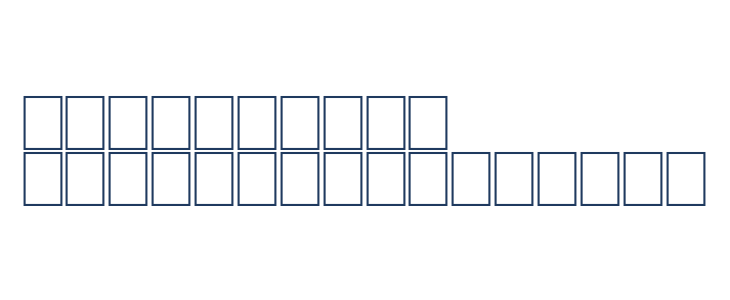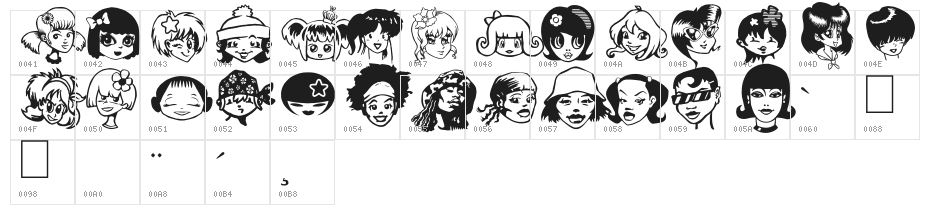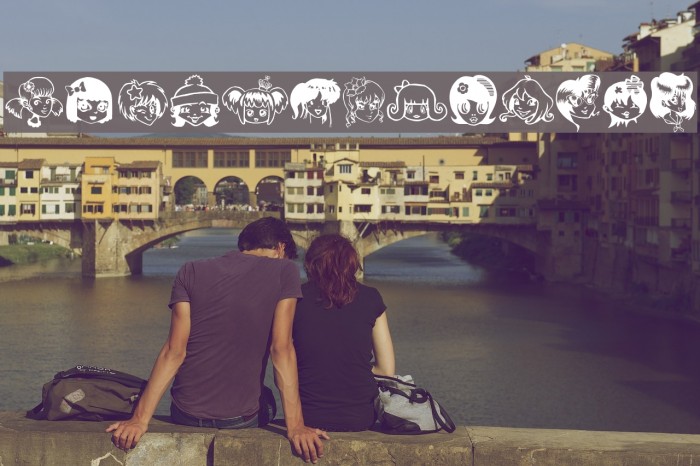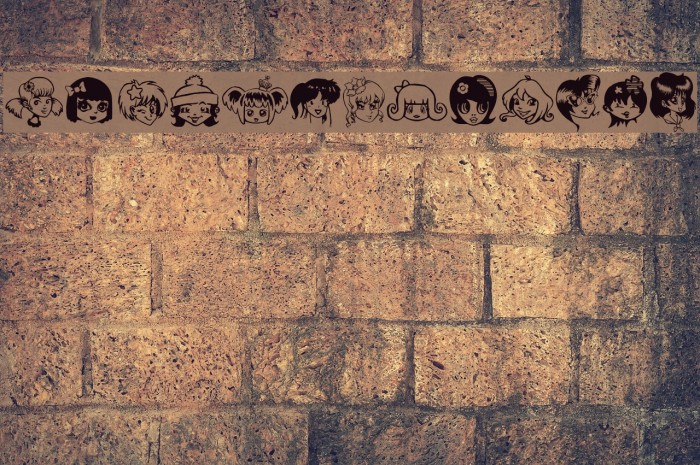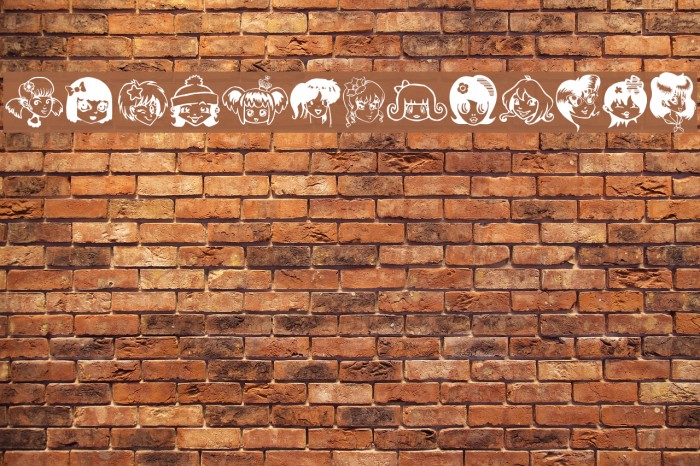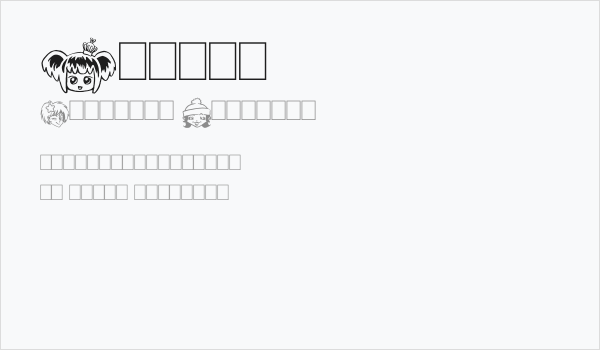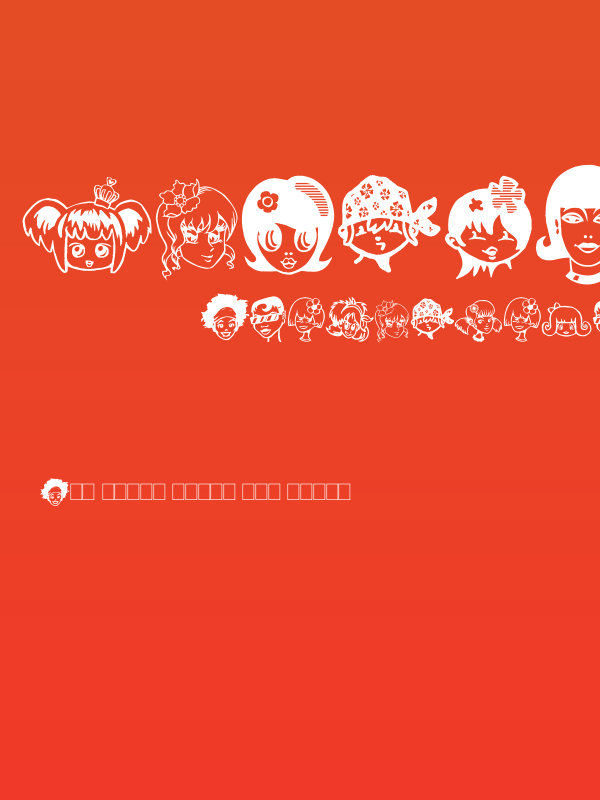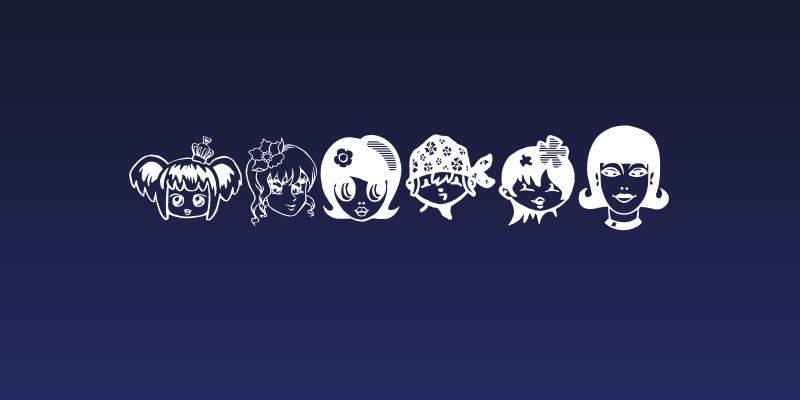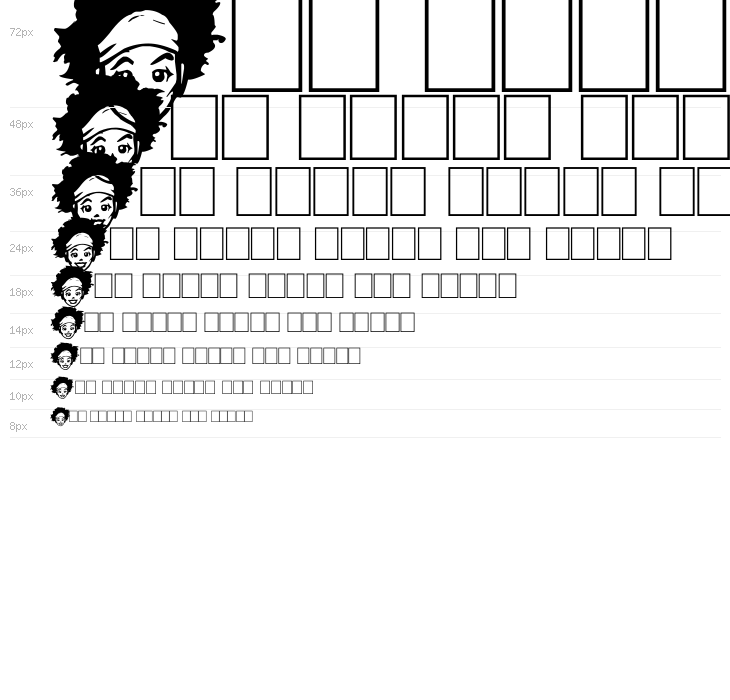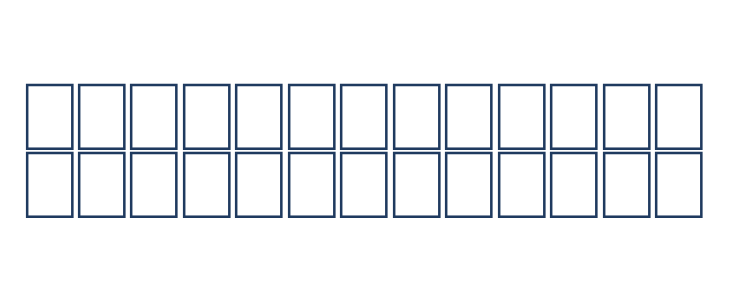
Egirlz Font
Egirlz Description
A decorative dingbat font featuring a variety of stylized cartoon and anime-inspired female faces, each with unique hairstyles, accessories, and expressions. The characters are highly detailed, playful, and expressive, rendered in bold black and white line art.
Overall StyleDecorative, Playful, Modern
Use CaseDecorative elements, icons, branding for youth culture, comics.
Proposed ProjectsStickers, posters, social media graphics, zines, youth-oriented branding, decorative borders.